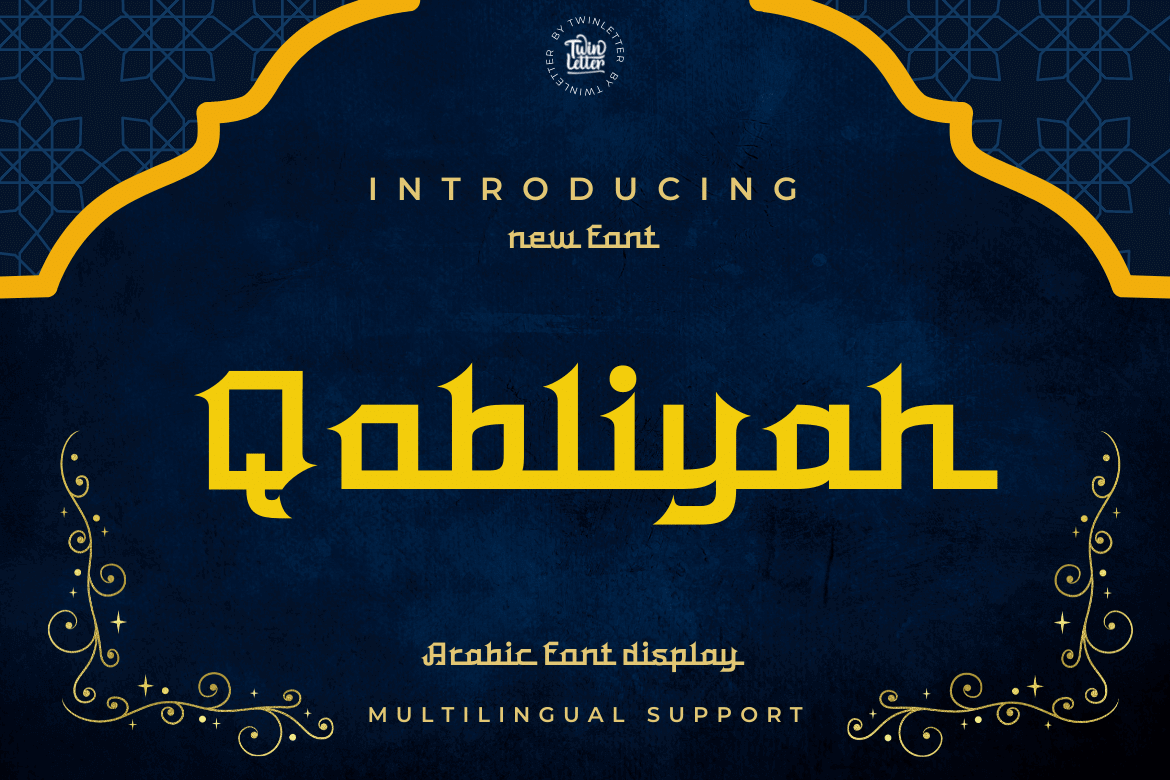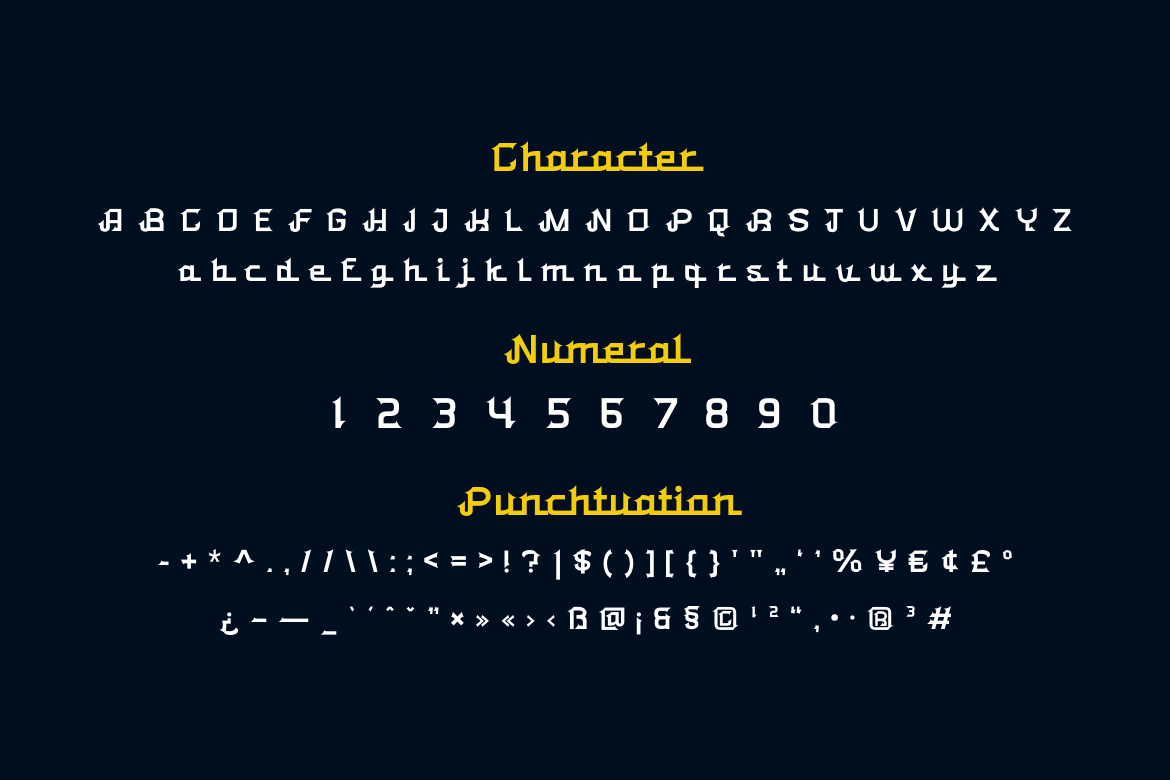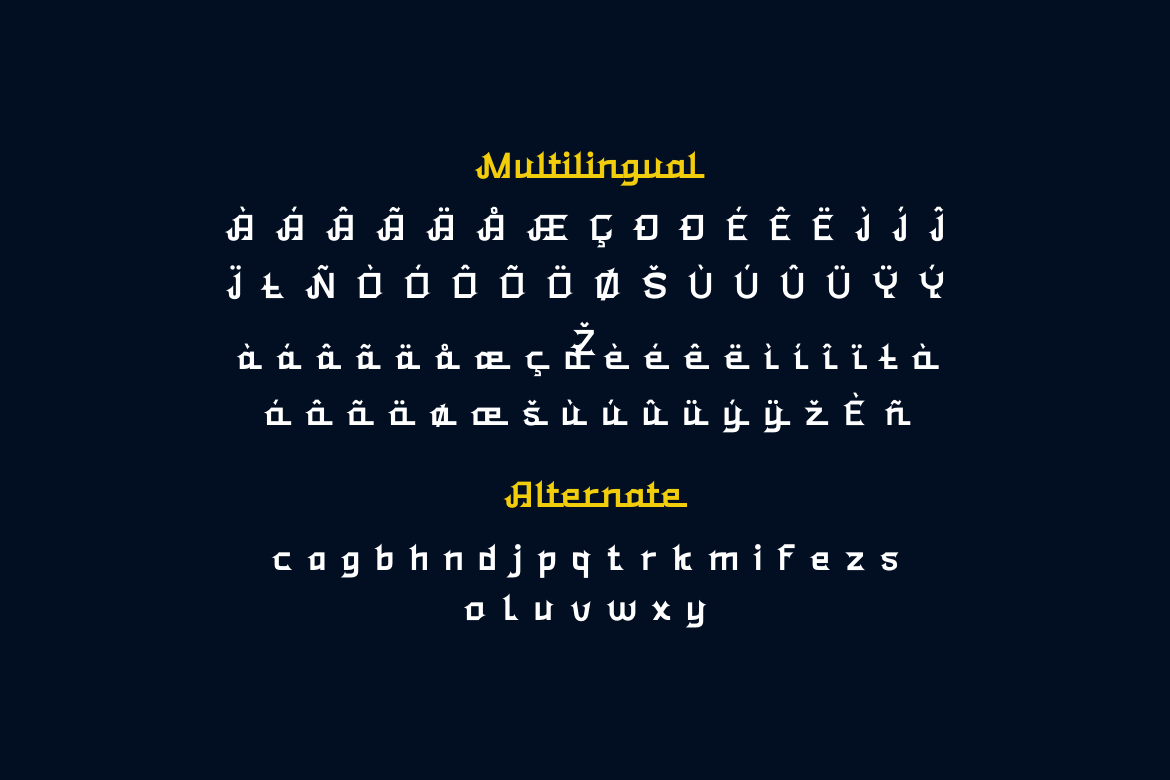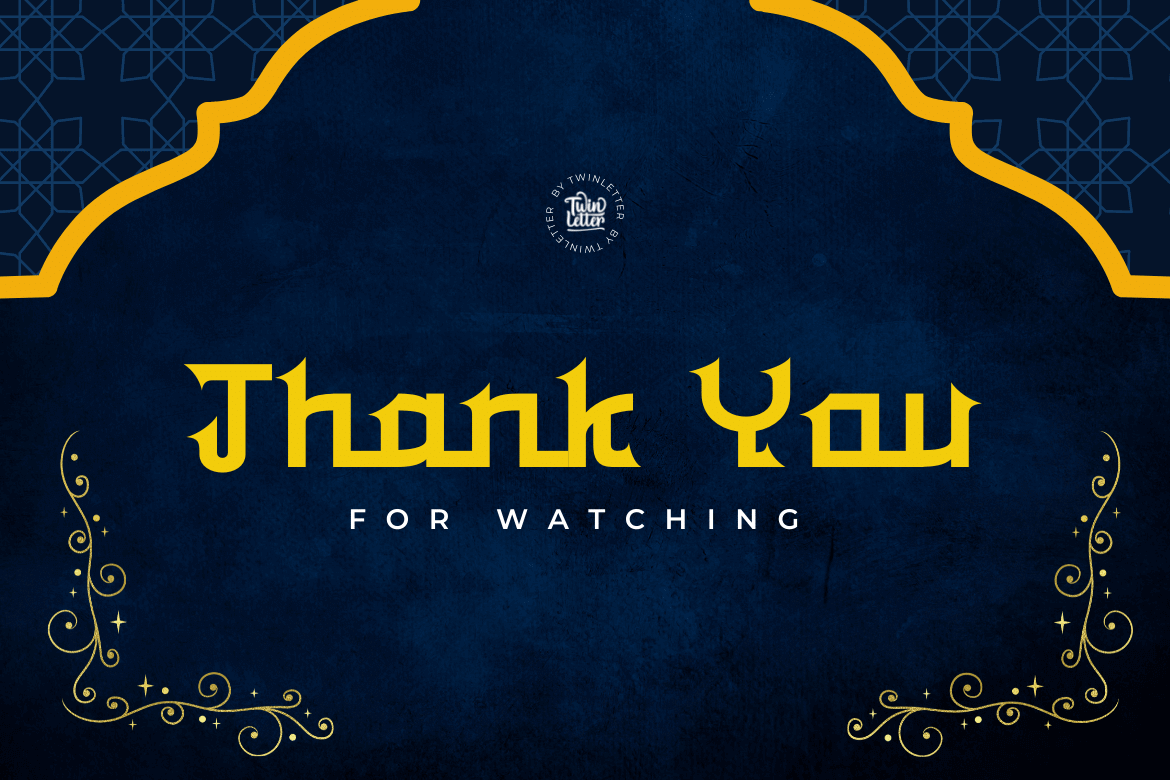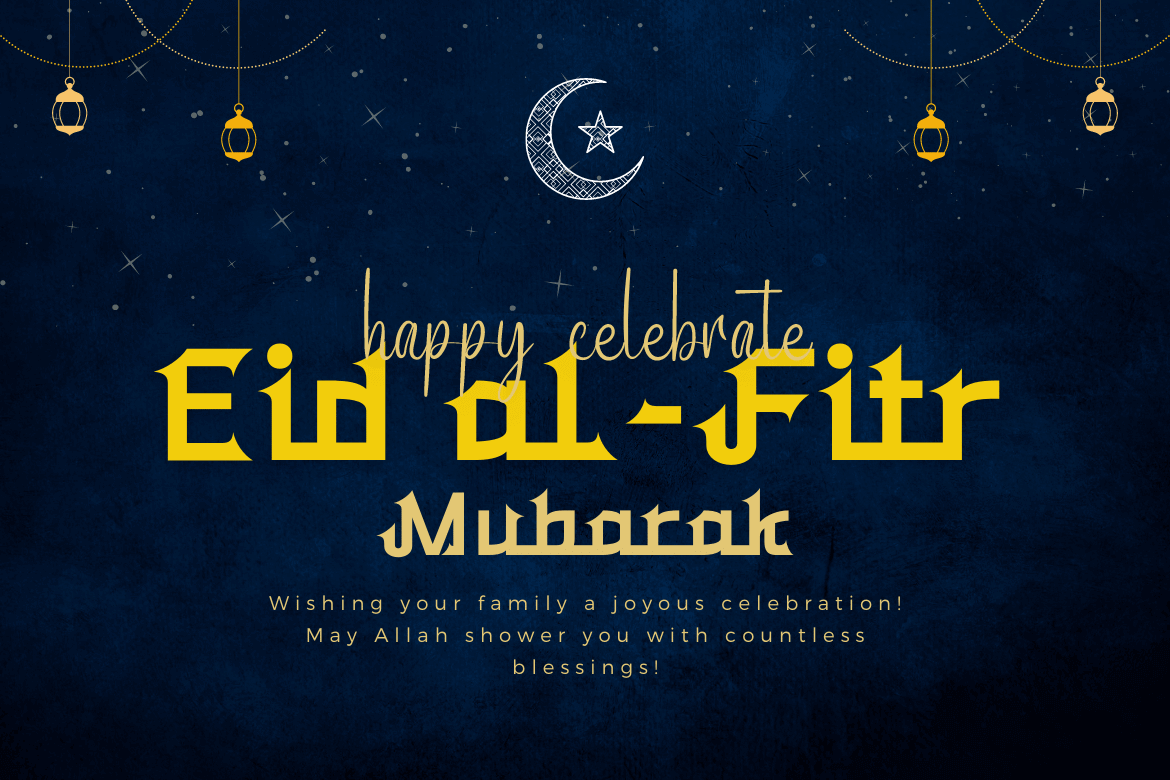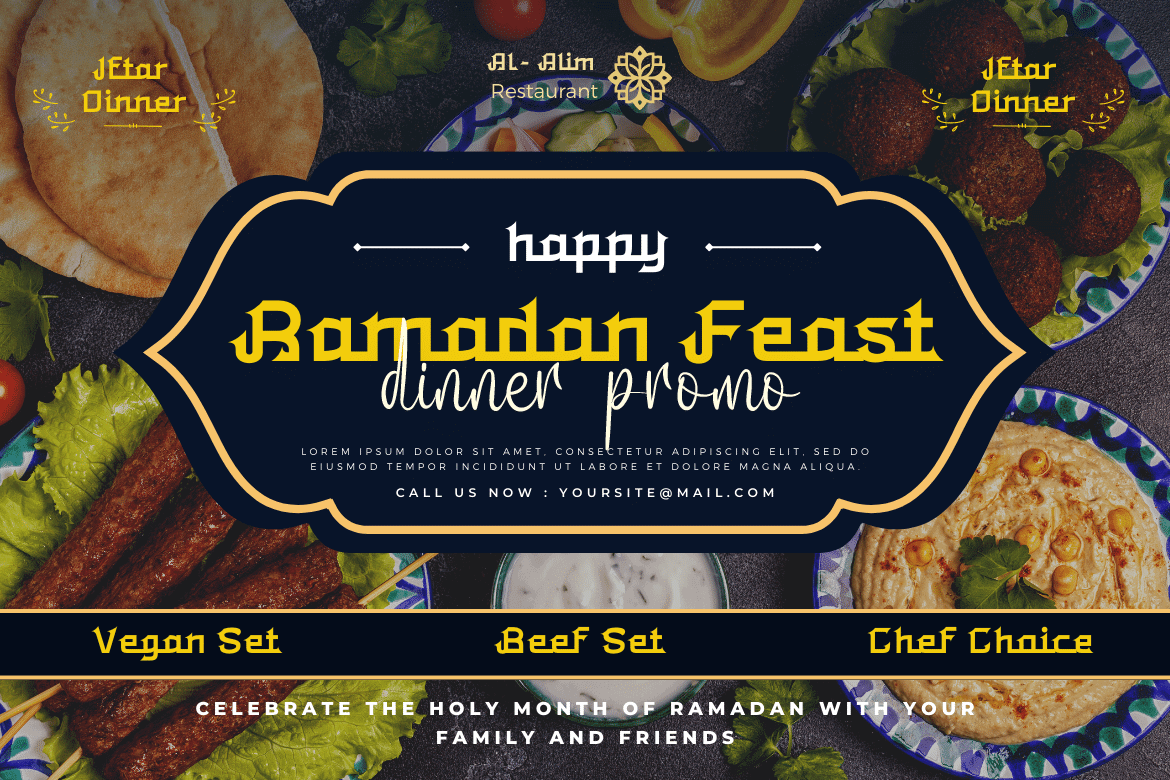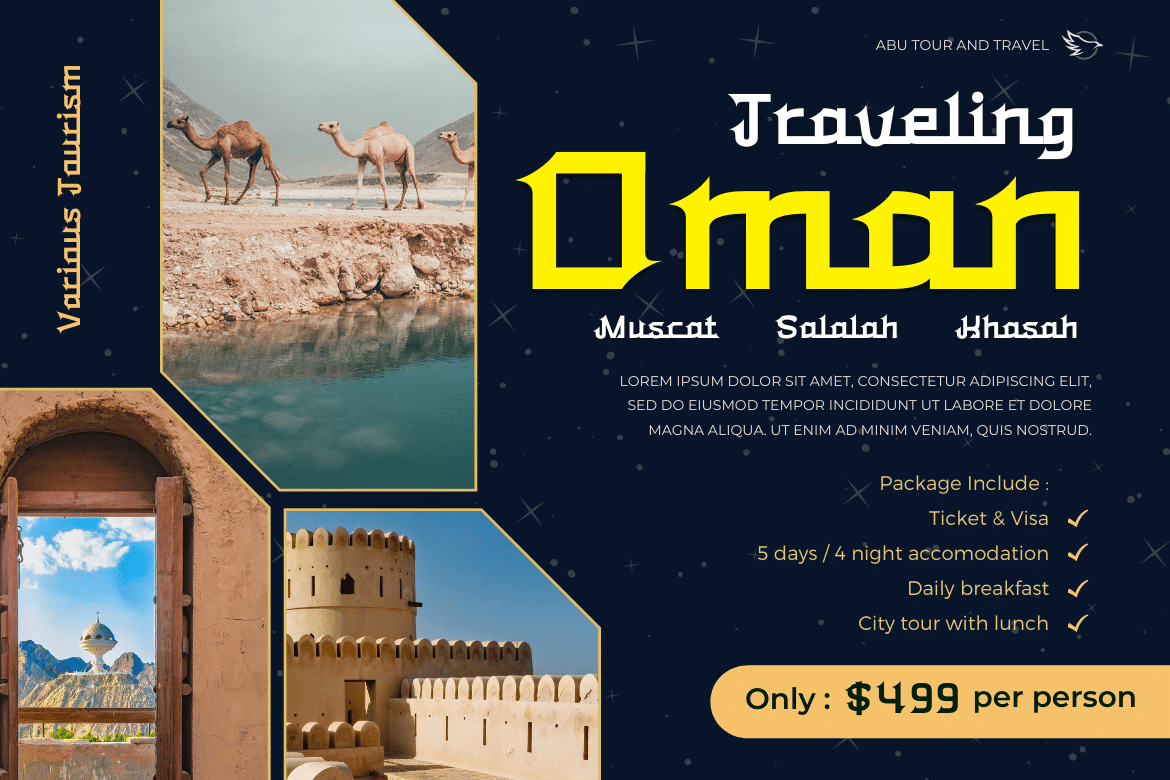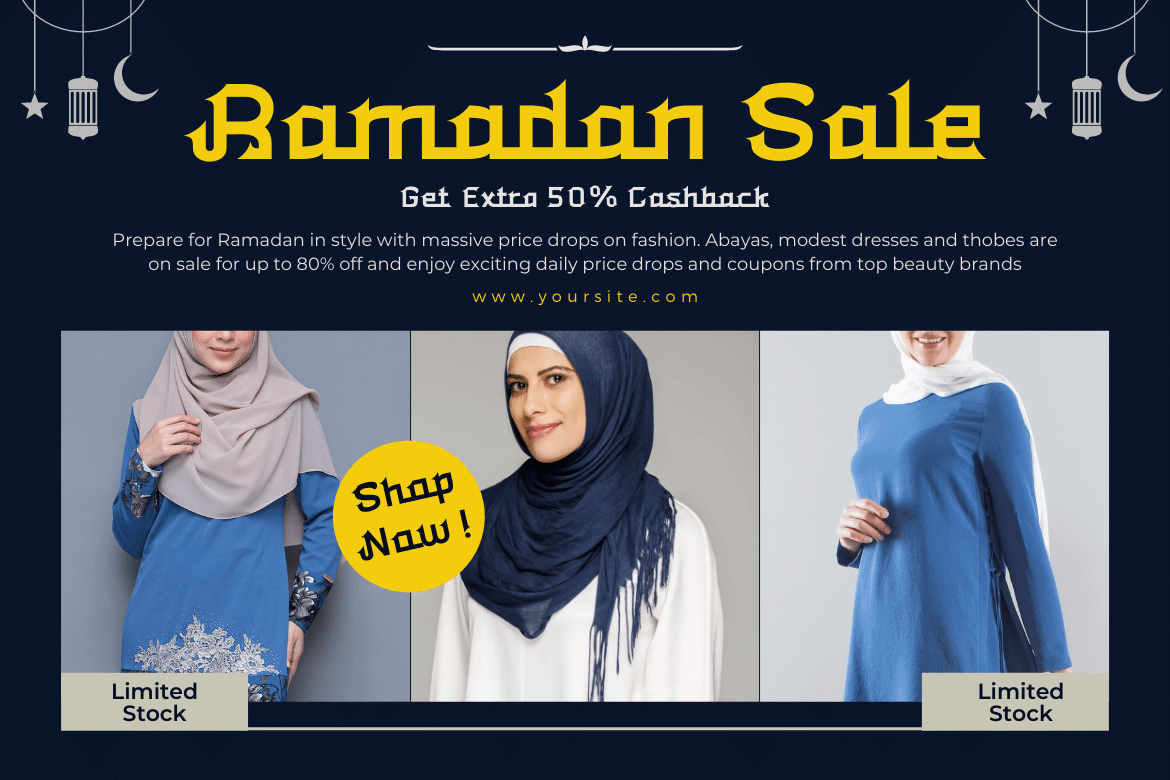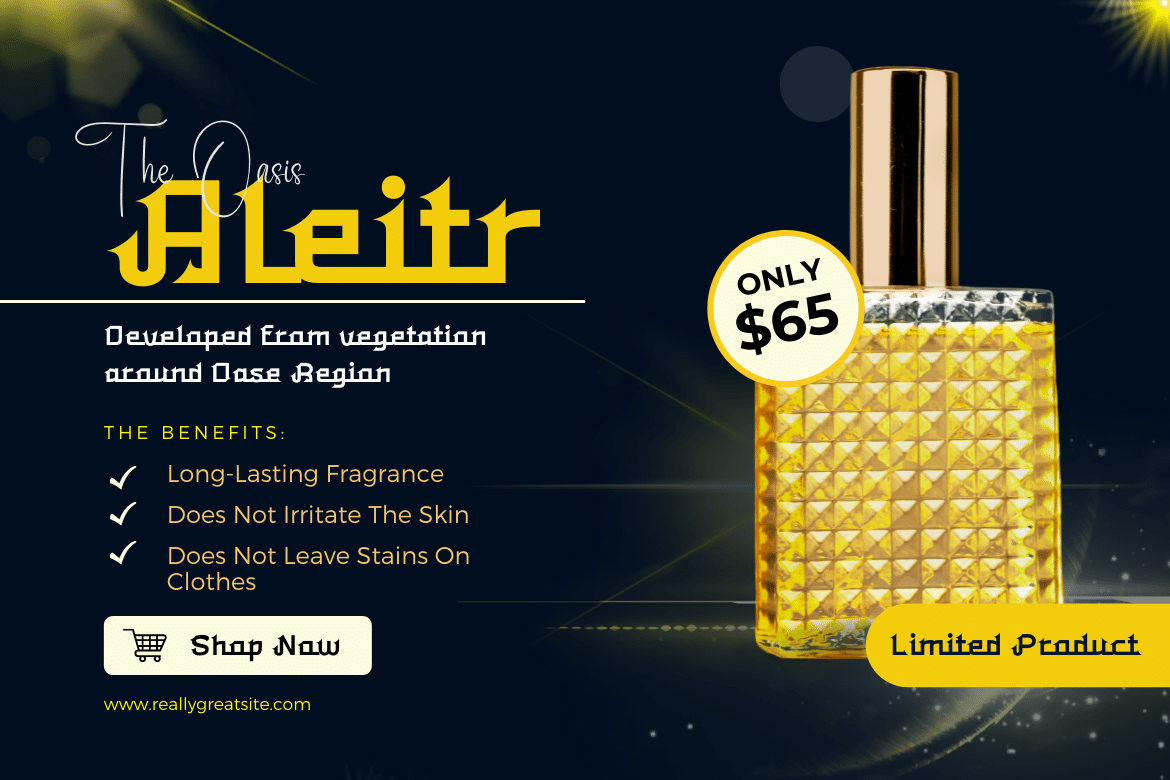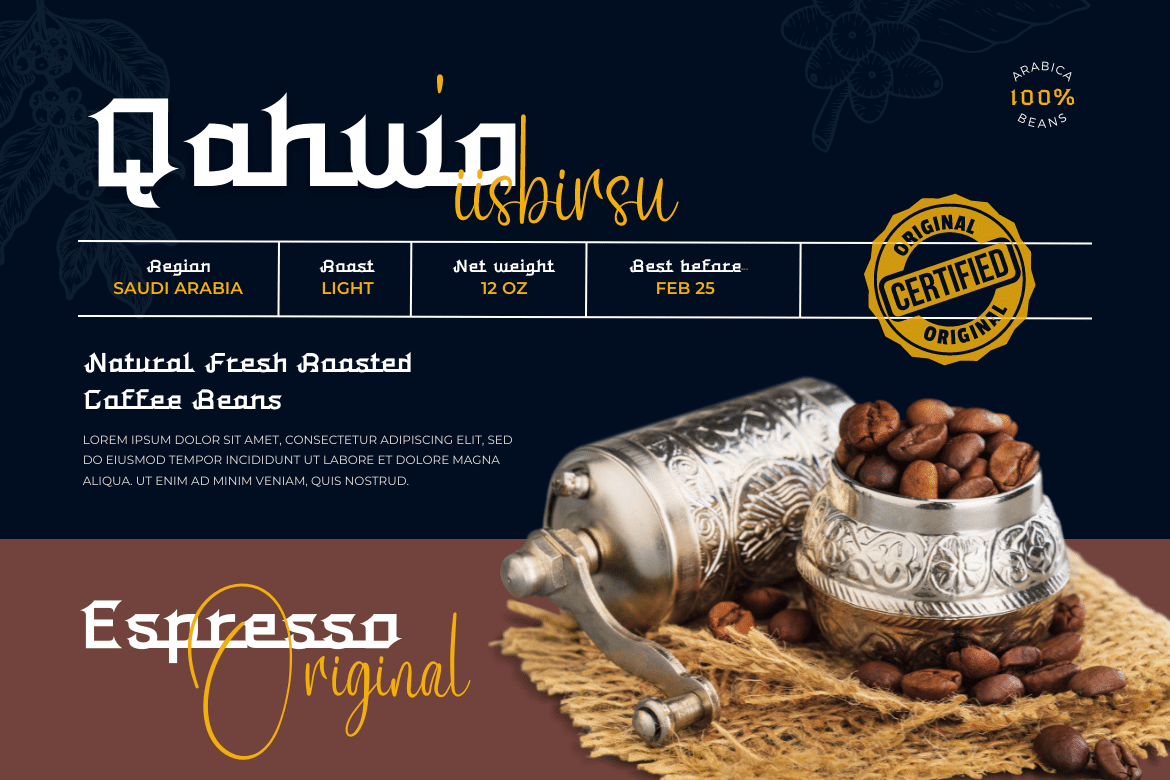
Qobliyah
The Qobliyah font is beautiful, elegant, and luxurious – that’s what you get when you use our font set. This font is easy to install and use in programs like Adobe Photoshop, Illustrator, InDesign, and Word, among others. Each font is designed by a professional graphic designer to ensure a flawless finish.